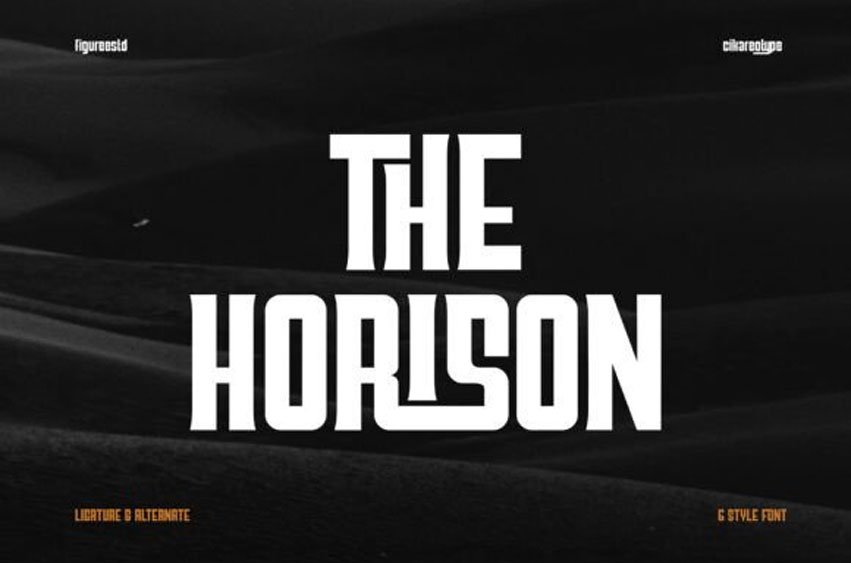
The Horison Font Infuse your designs with boldness and poise with The Horison, a contemporary display font that commands attention. A fusion of cinematic title design, fierce sporting aesthetics, and impressive industrial typography, The Horison embodies authority and strength in every character. The Horison radiates a dynamic yet harmonious equilibrium in its design. It manifests compelling silhouettes, making it a perfect choice for large-scale headlines, riveting posters, and impactful branding applications.
The Horison offers six styles, paving the way for layered hierarchy and contrasting dynamism within a single type family. Empowered by a robust geometric framework, it ensures consistent spacing and superior readability even at lofty sizes, reinforcing its fitness for diverse fields spanning from movie titles, corporate branding, tech startups to luxury labeling.